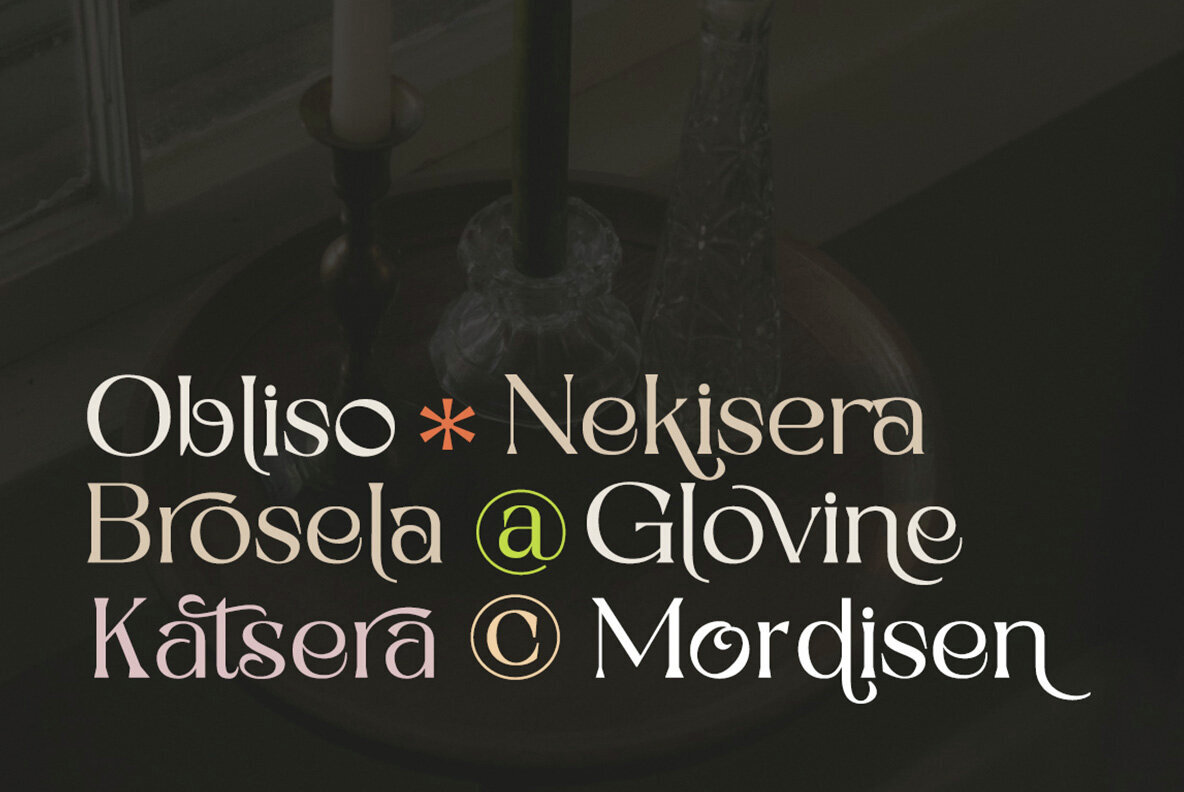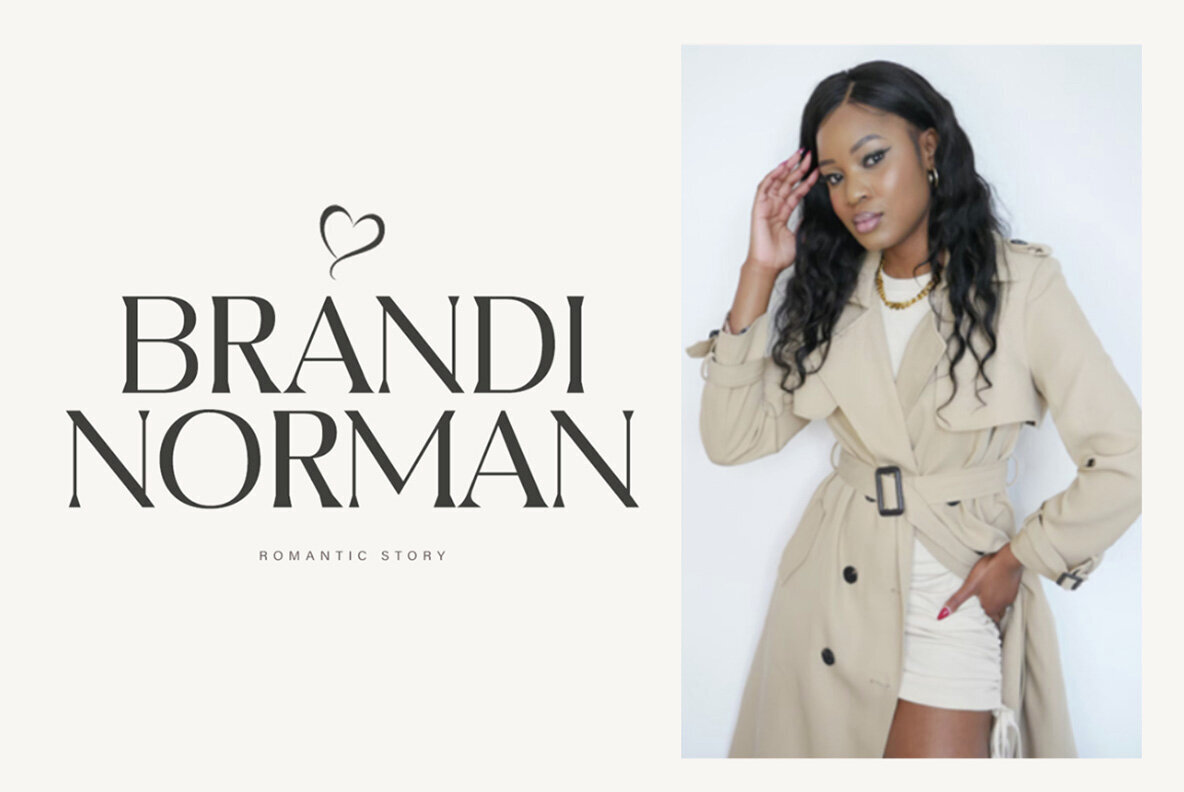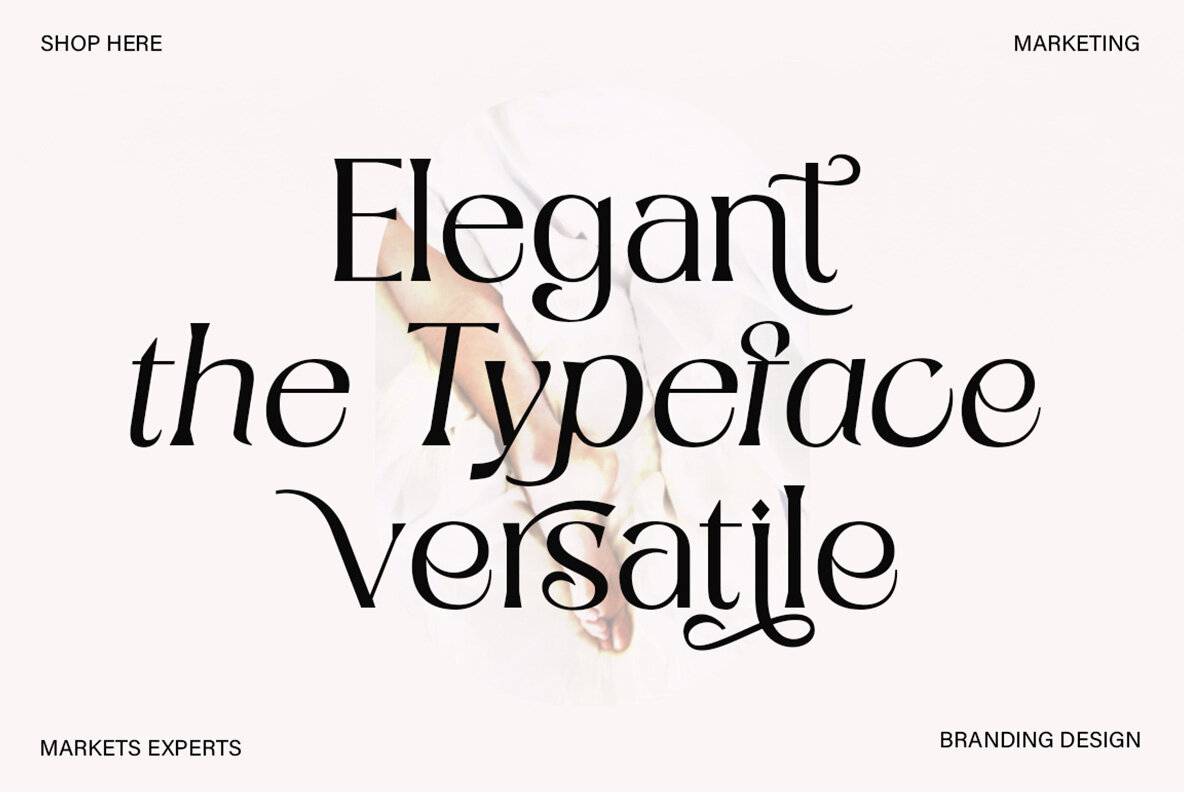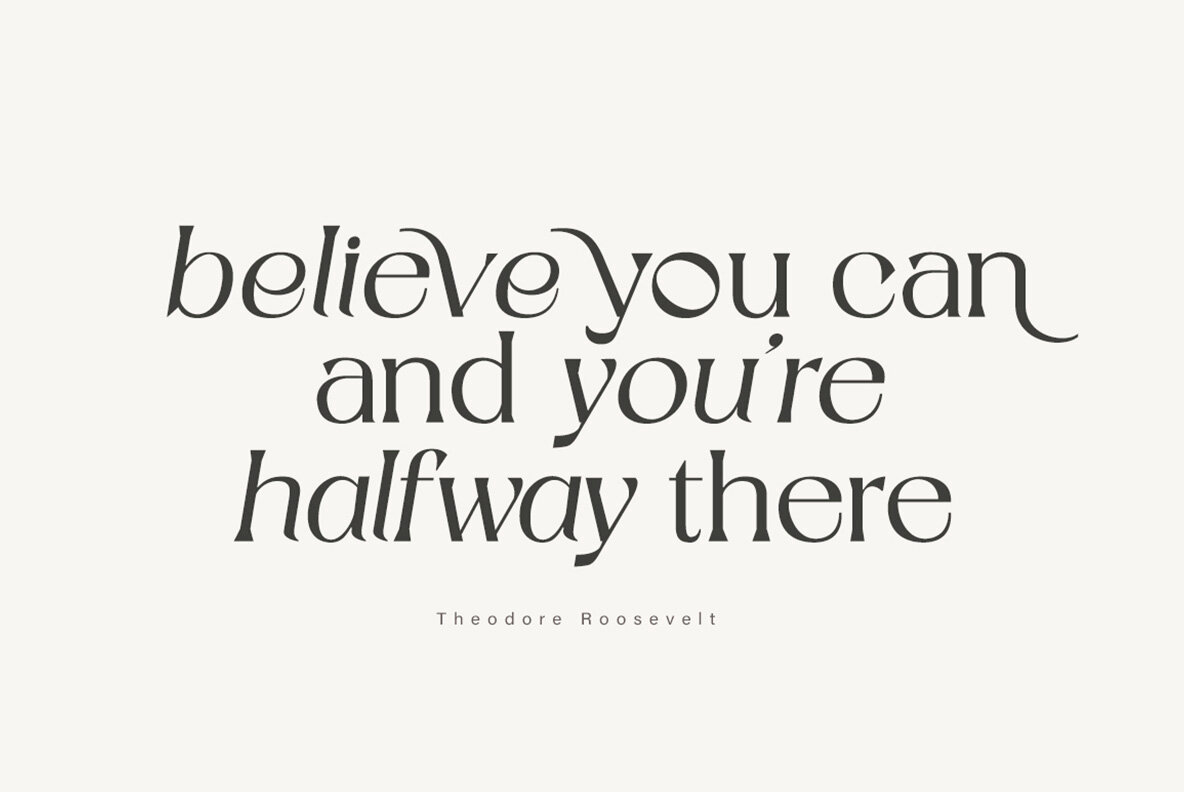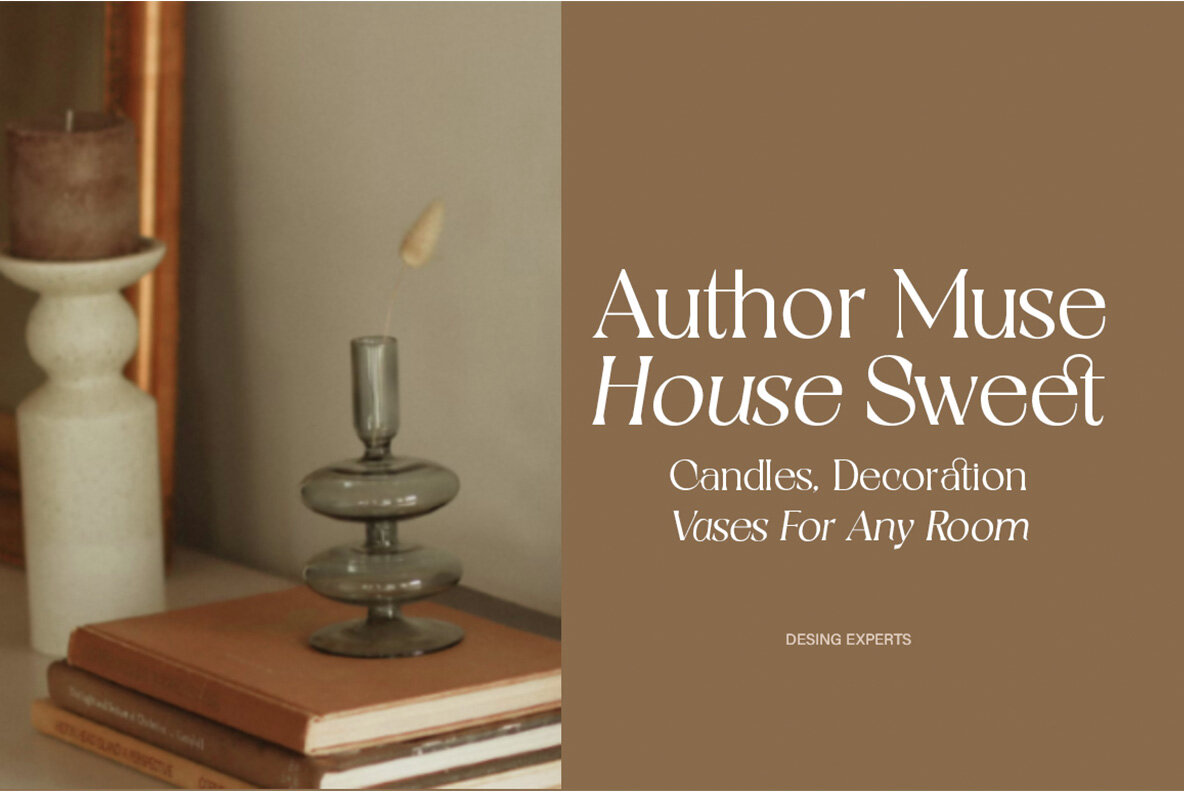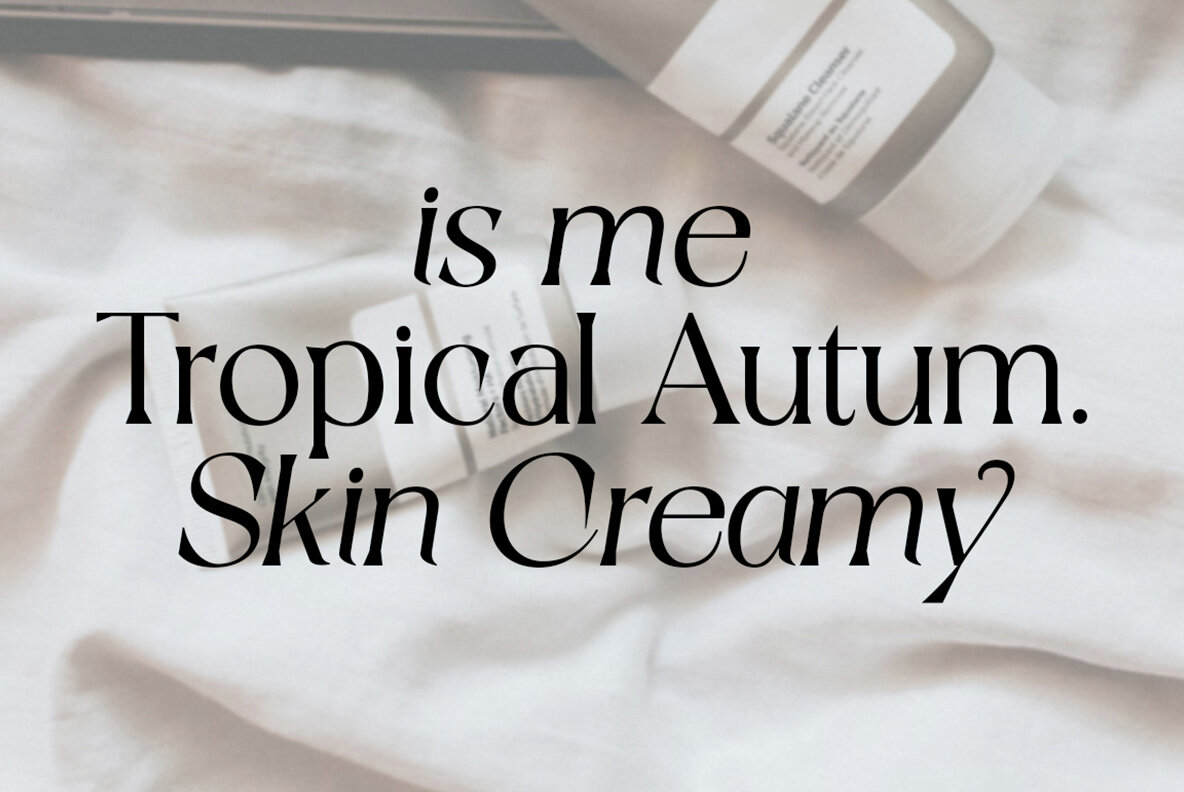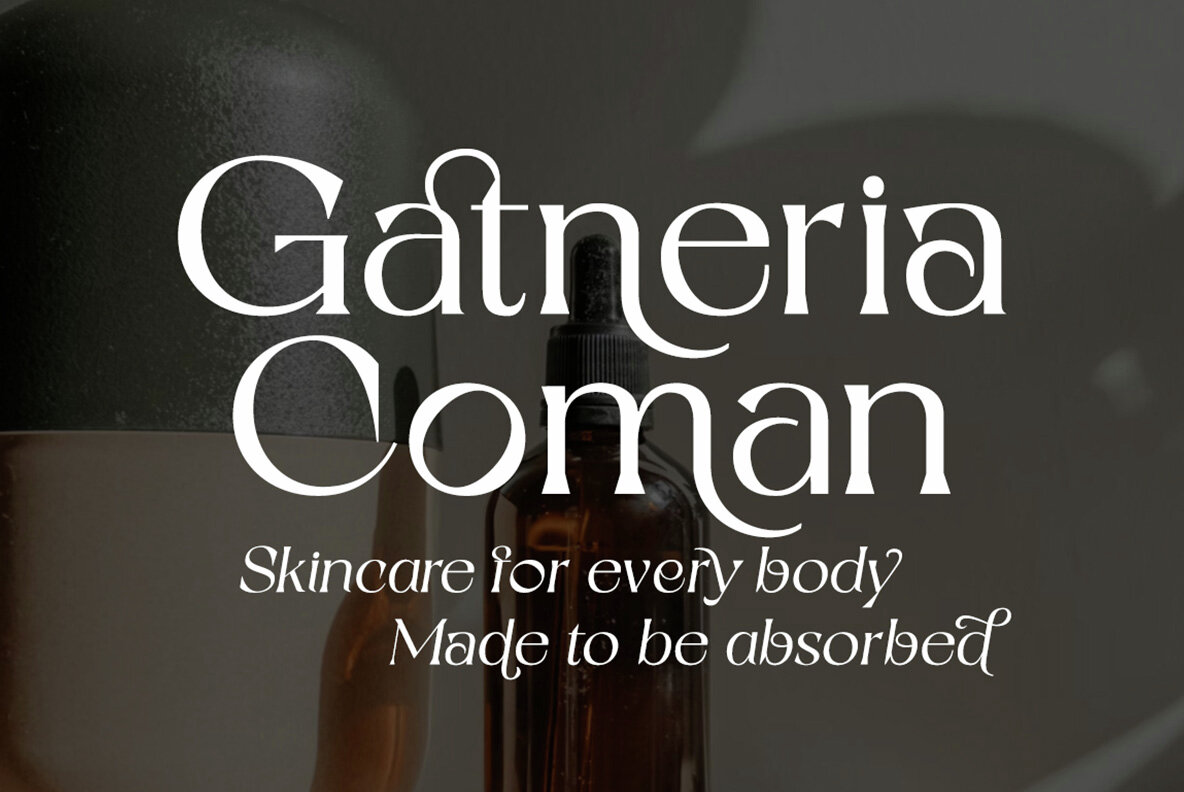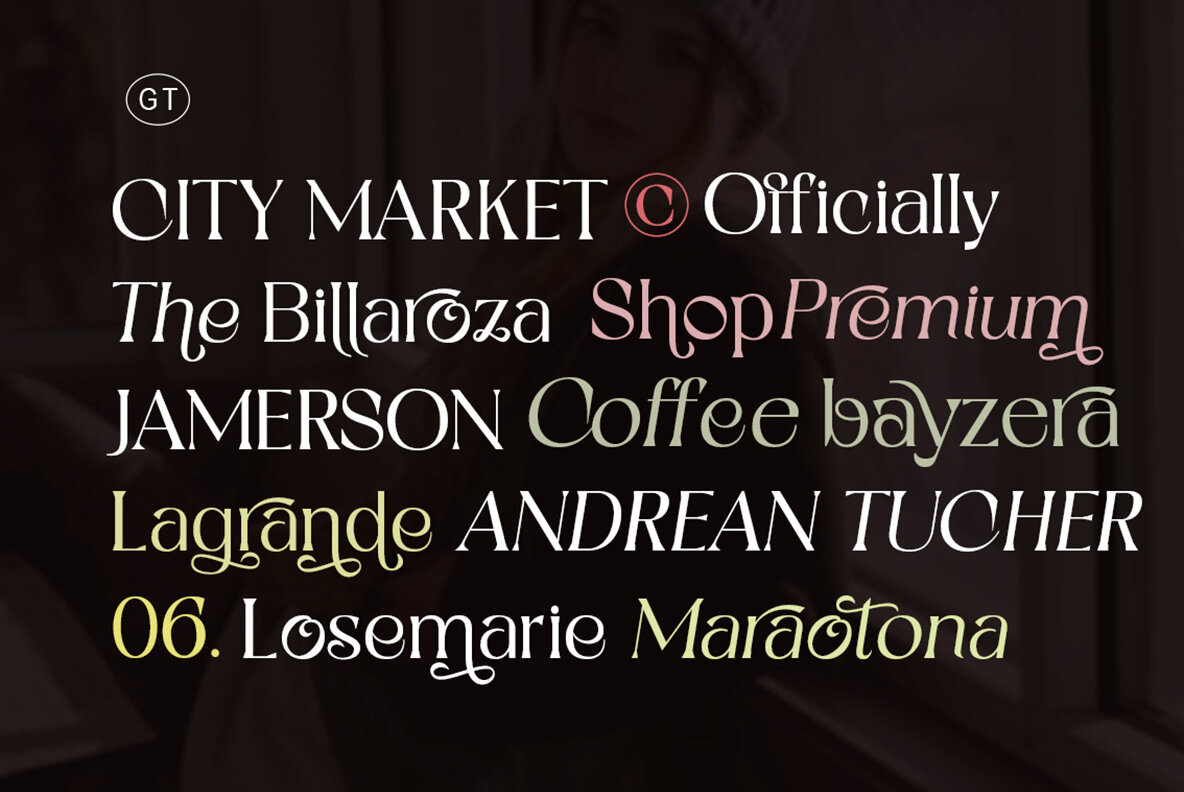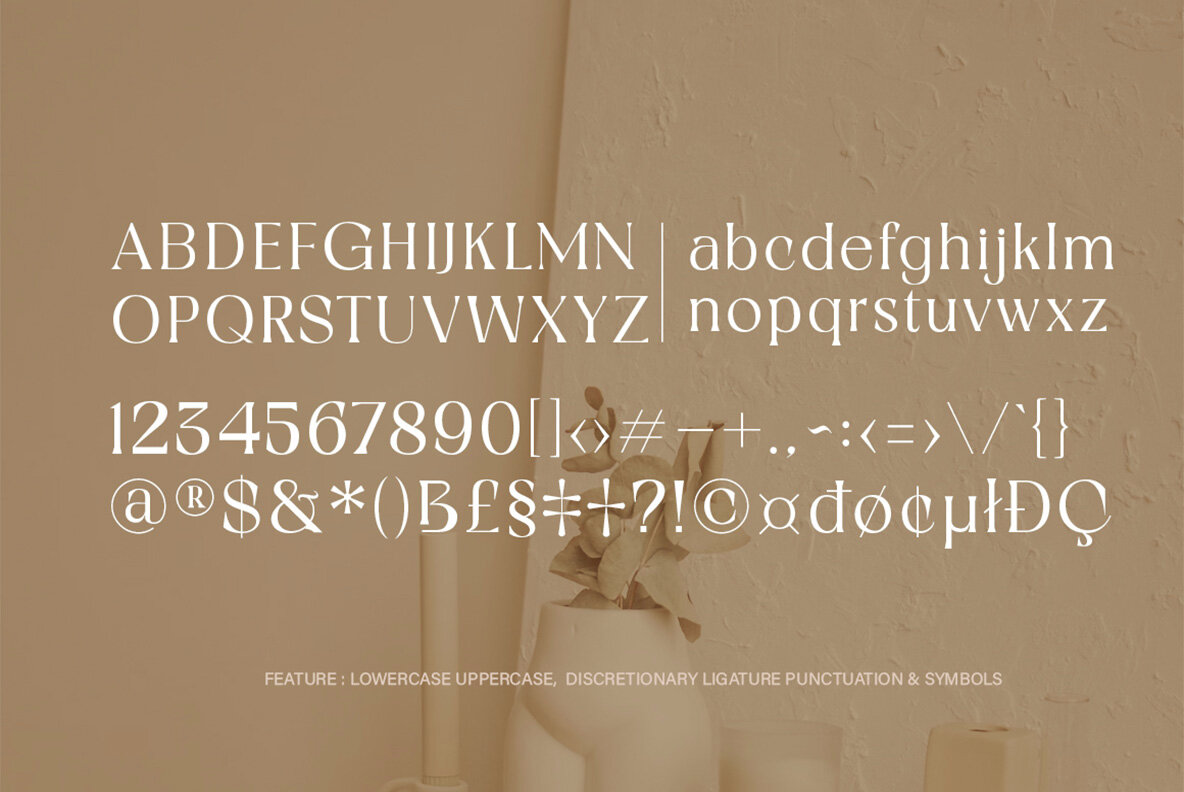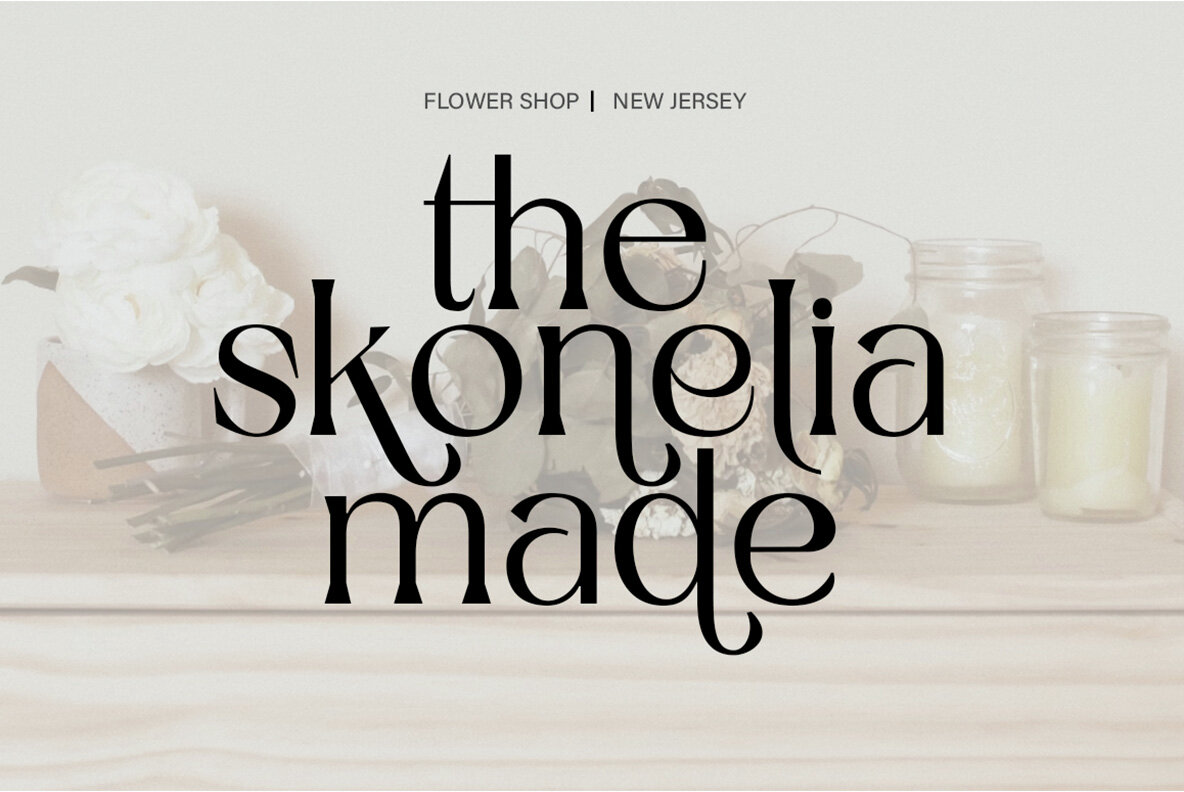
Flower Balisteno Font
Flower Balisteno is a refined serif display font featuring two distinct styles—upright and italic. Designed for versatility, this typeface balances bold presence with clarity, making it suitable for both headlines and extended text. Each letterform in Flower Balisteno is crafted for elegance and individuality. The font includes a selection of alternate glyphs, easily accessed for custom letter combinations and expressive visual impact. Its readability and well-balanced proportions lend sophistication to editorial layouts, branding, invitations, packaging, and more.Flower Balisteno Serif Display Font